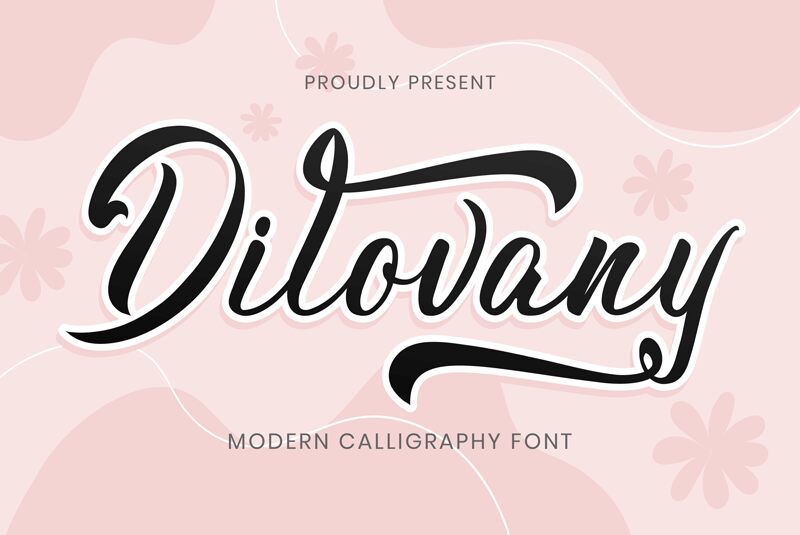
Dilovany
Dilovany, the latest creation of Tio Yulianto, is a modern calligraphy font designed with a touch of elegant flair. Its semi-light weight makes it perfect for various projects such as wedding invitations, branding materials, and social media graphics. Dilovany's fluid strokes and unique letterforms are sure to add a sophisticated and playful touch to any design project. Whether you're looking to create a romantic invitation or elevate your brand's visual identity, Dilovany's modern calligraphy style is the perfect choice. Get creative with Dilovany and let your designs stand out!